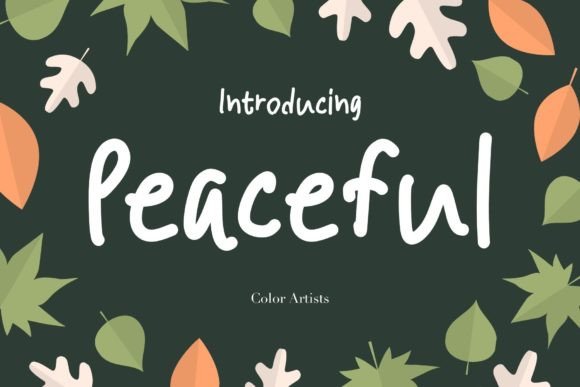
Dive into the world of Peaceful, a captivating script font that exudes elegance and tranquility. This exquisite font family offers a unique blend of delicate lines and sweeping curves, effortlessly enhancing your creative projects with a touch of sophistication.
Crafted with the utmost care by the renowned MyFontsShop, Peaceful is designed to evoke a sense of inner peace and serenity with every letterform. Its flowing strokes and gentle curves mimic the calming waves of a tranquil sea, inviting readers to immerse themselves in a world of tranquility.
Whether you're crafting heartfelt invitations, designing serene logos, or creating social media content that resonates with your audience, Peaceful provides the perfect canvas for your artistic expression. Let your words flow effortlessly in this mesmerizing font, leaving a lasting impression on your readers.
Elevate your digital presence with Peaceful, a font that speaks volumes without uttering a single word. Its visually pleasing characteristics make it an ideal choice for crafting social media posts, email campaigns, and digital advertisements that capture attention and leave a lasting impact.
With Peaceful, you're not just adding text to your designs; you're creating an experience that draws readers in and invites them to stay. Its enchanting charm will captivate your audience, making your messages impossible to ignore.
Harness the power of Peaceful to enhance your designs, whether it's a website, a poster, or a personal journal. Its versatile nature allows you to effortlessly blend it with various design elements, creating harmonious compositions that embody the essence of tranquility.